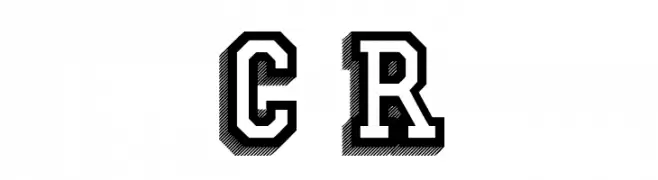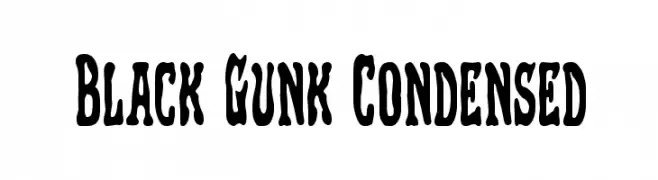
A flowing, elegant script font with smooth, continuous strokes.
A bold, three-dimensional collegiate-style font with strong outlines and shadow effects.
Hand-drawn, sketch-style icon set with playful, informal lines.
A bold, geometric font with a futuristic inline style and strong contrast.
A bold, blackletter-inspired font with ornate details and high contrast.
A bold, condensed font with a playful, hand-drawn style.
A bold, flowing script font with an elegant, handwritten style.